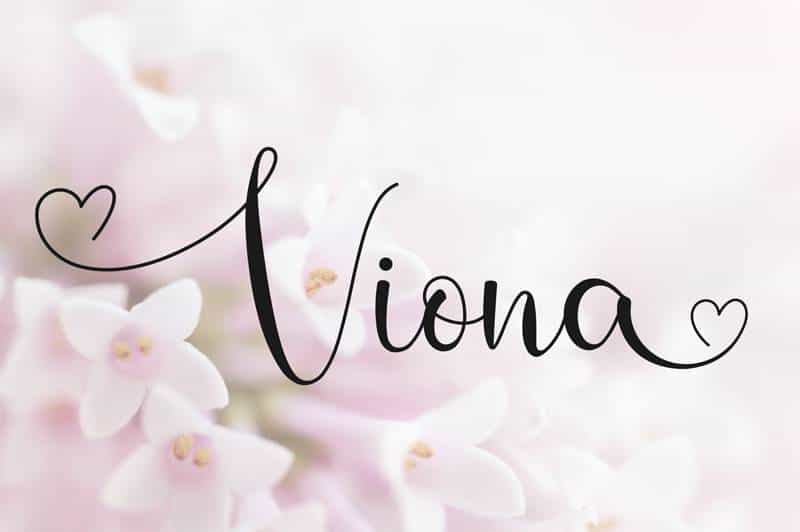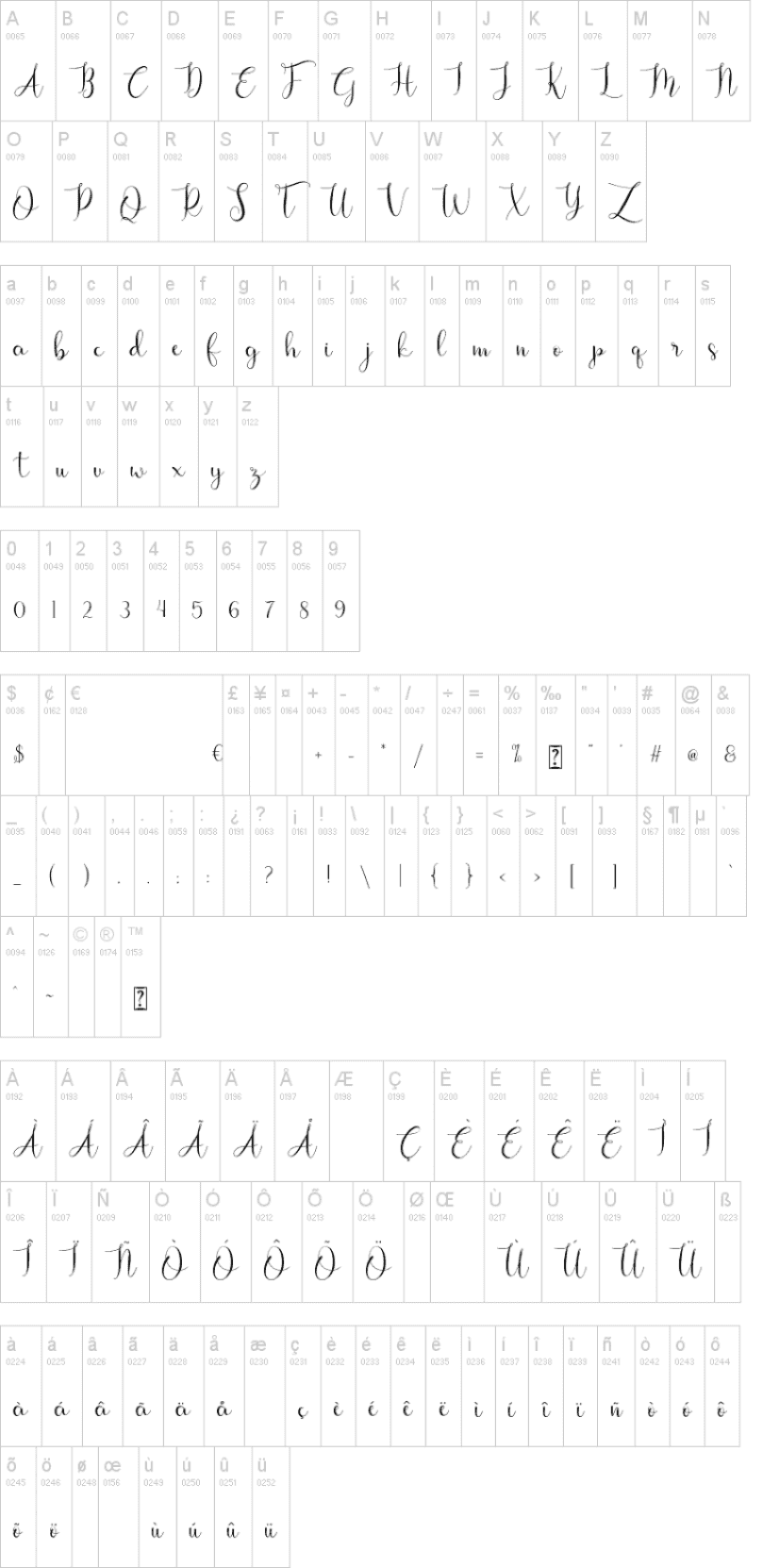
Viona is a high quality Calligraphy typeface designed by Fanastudio, that you can download for non-commercial use for free. In addition, the free version contains the regular case setting with all uppercase and lowercase letters plus some obscure special characters.